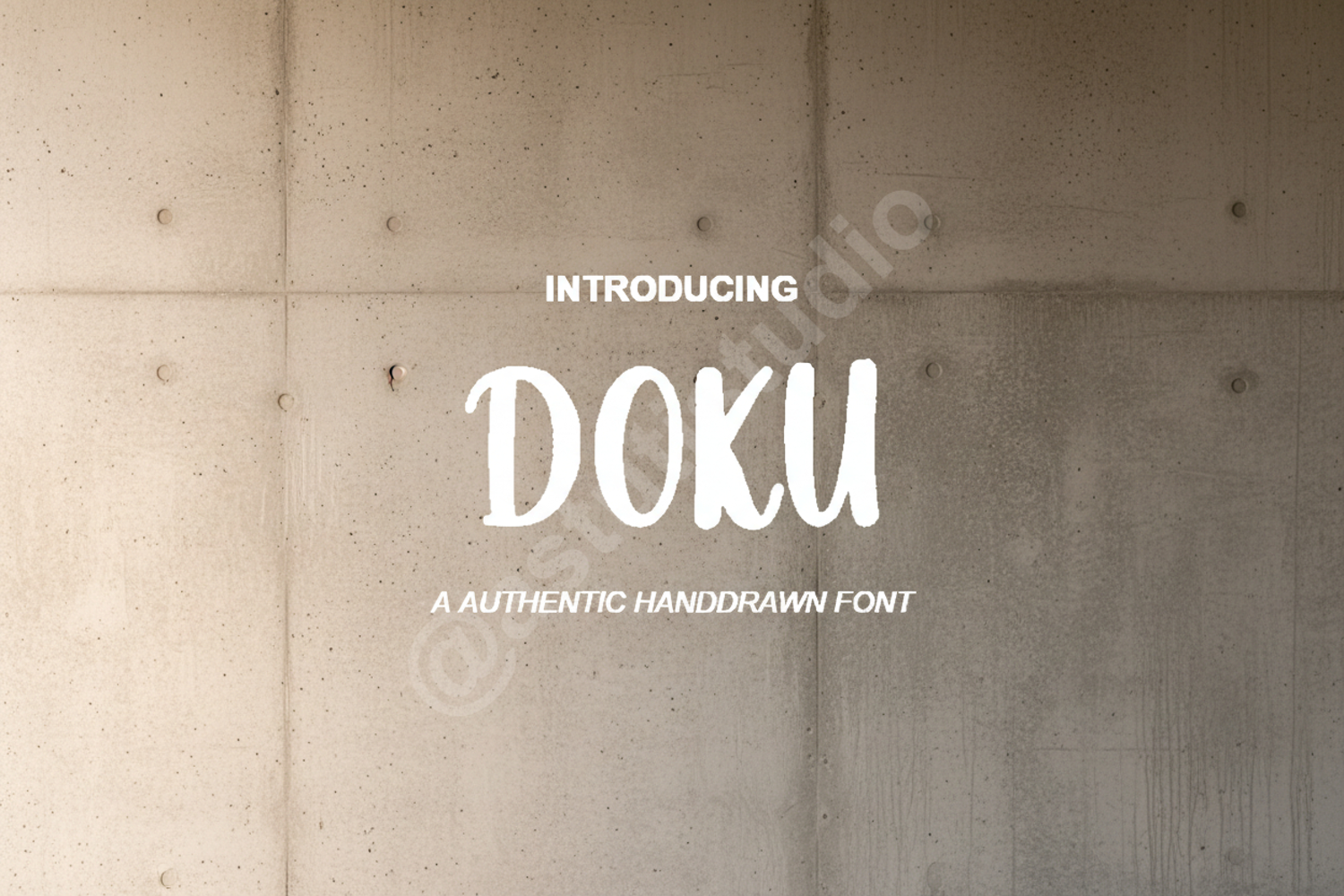
Doku - Modern Geometric Sans Serif
Doku
Doku is a premium sans serif typeface designed with precision and modern aesthetics in mind. Featuring clean geometric lines and a balanced weight distribution, Doku offers a sophisticated look that remains highly legible across various mediums. Whether you are building a high-end brand identity or a sleek user interface, this font provides the professional edge your projects deserve.
- Full set of uppercase and lowercase letters
- Multilingual support for global reach
- Precise kerning for a polished finish
- Branding and Logo Design: Perfect for creating memorable and modern visual identities.
- Editorial Layouts: Ideal for high-fashion magazines and corporate reports.
- Web Design: Clean structures ensure excellent readability on digital screens.
- Signage and Packaging: Bold and clear forms that stand out in physical spaces.
- Professional Presentations: Elevate your slides with a font that communicates authority and clarity.